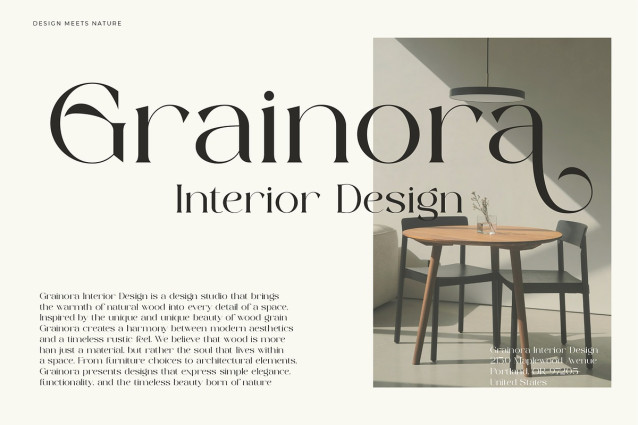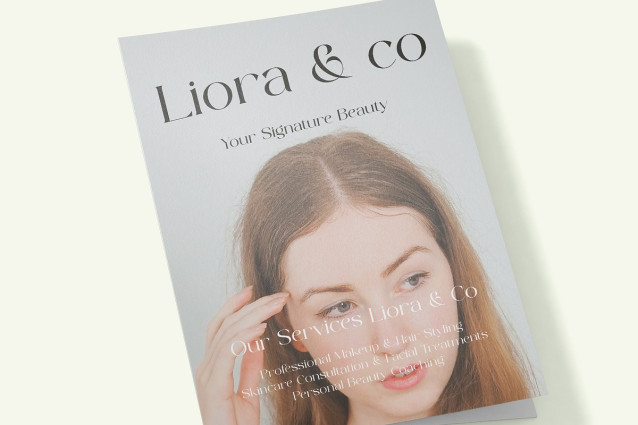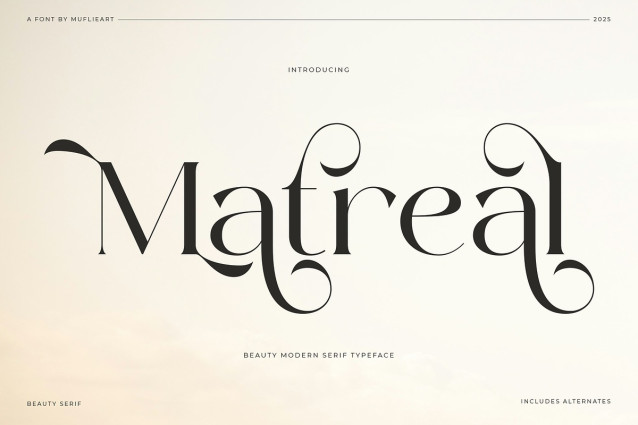
Matreal Font
Matreal Font – Modern Serif Font is the perfect choice for those looking for a modern serif font with an elegant and captivating touch. Designed with fine details and balanced letterforms, this font provides a professional yet artistic feel for a variety of design needs.